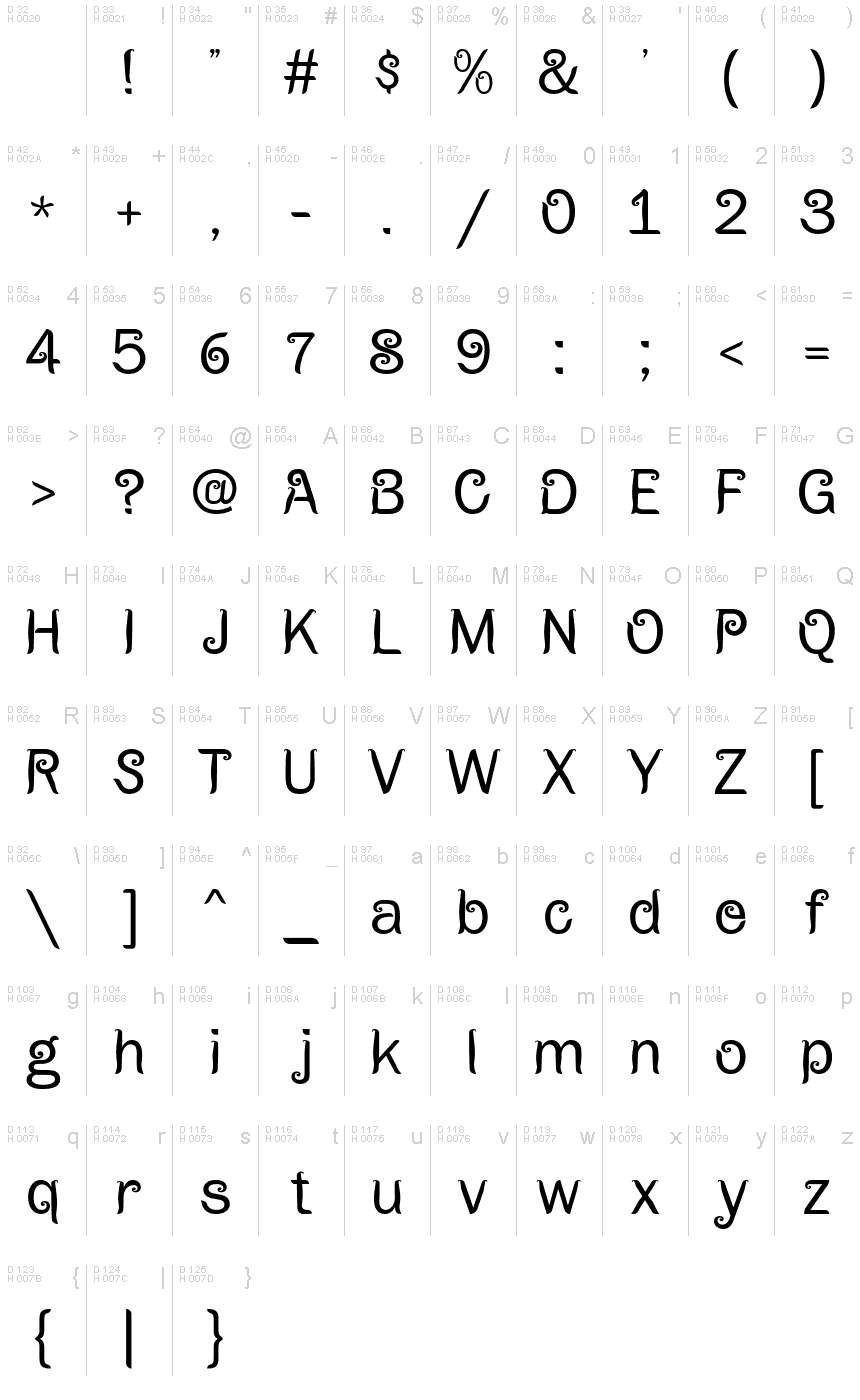
Rewe-rewe Regular
Rewe-rewe typeface is a curly font designed by Qoyyum Arfi.
This display typeface is inspired by "rewe-rewe or grasak dance" based in Magelang, Indonesia.